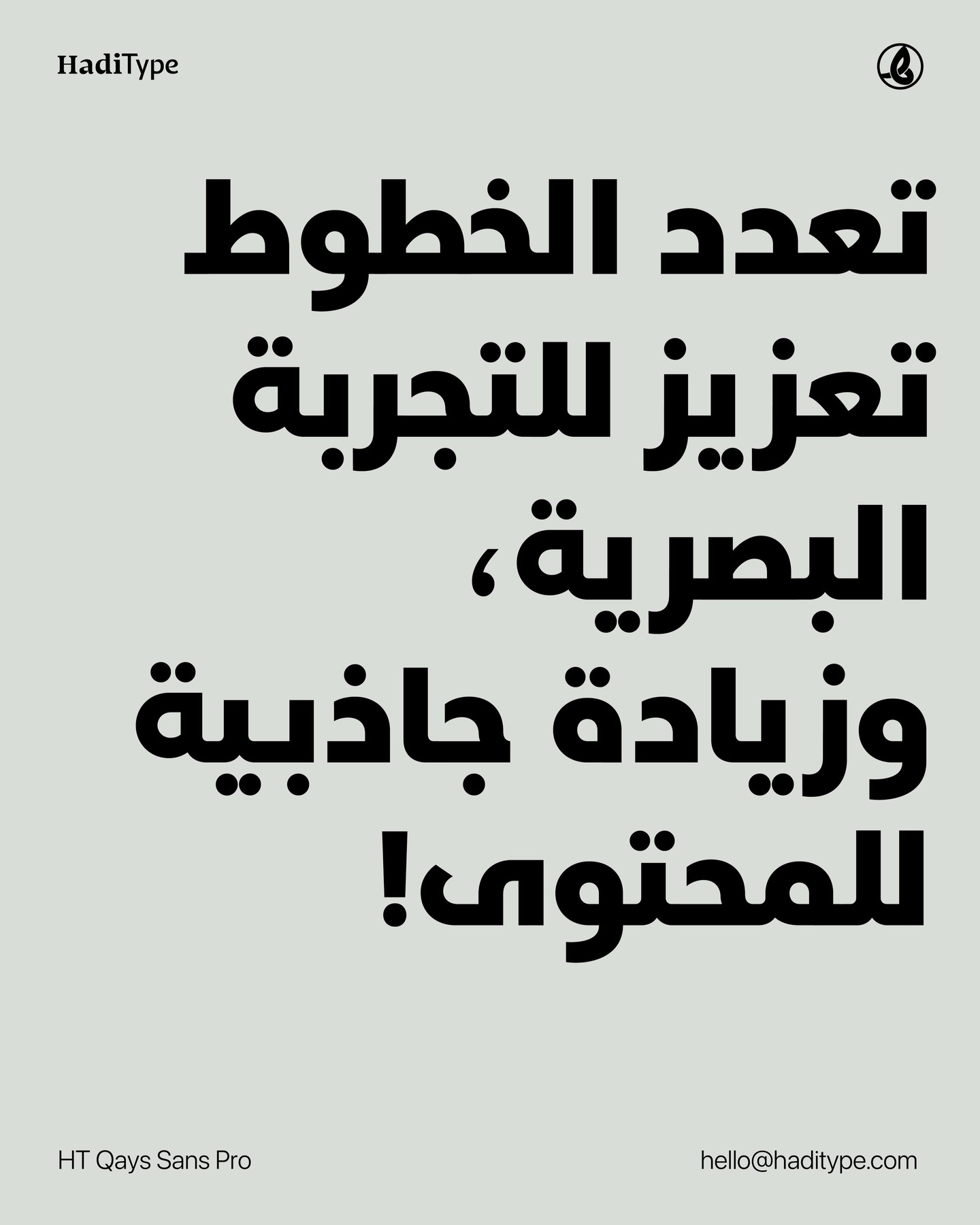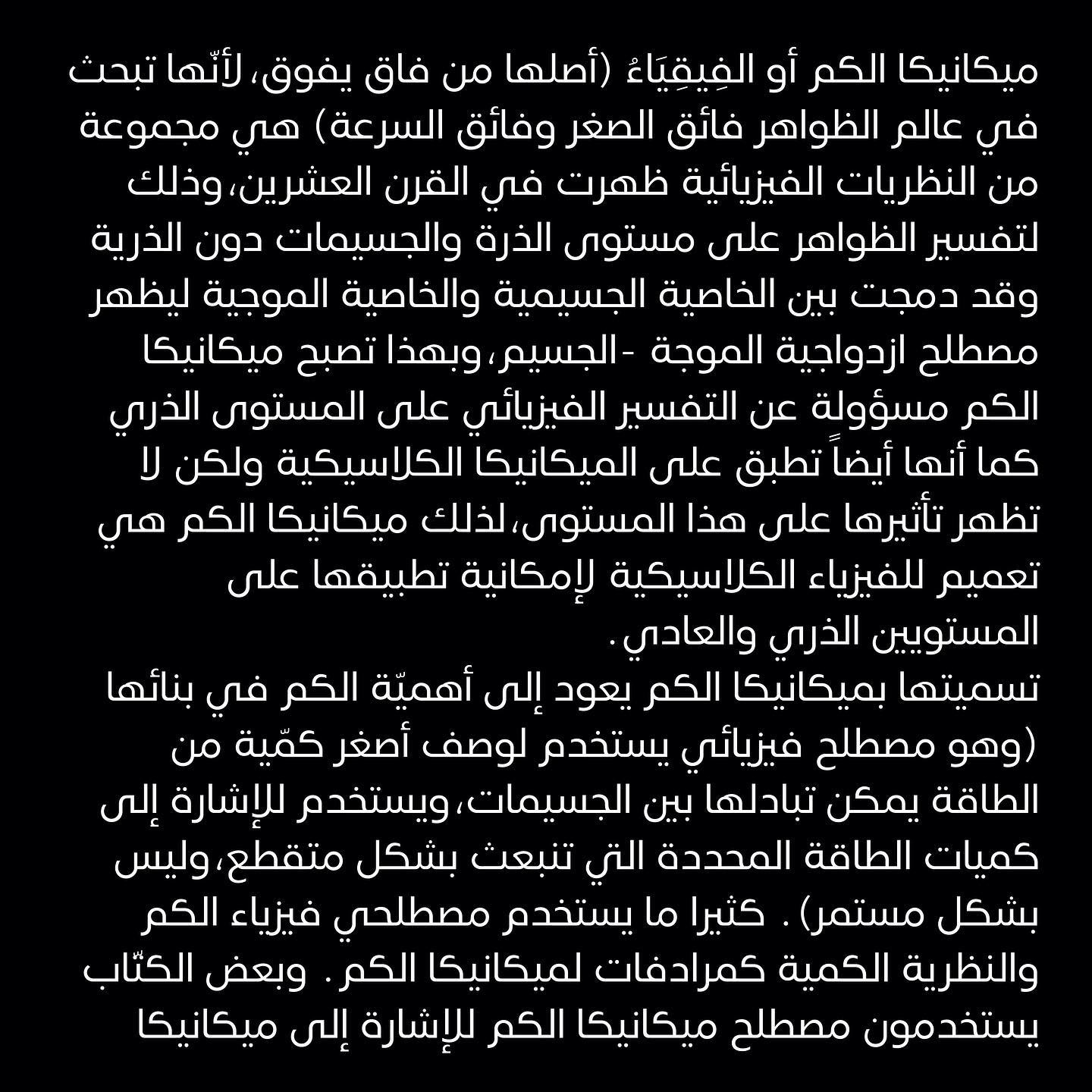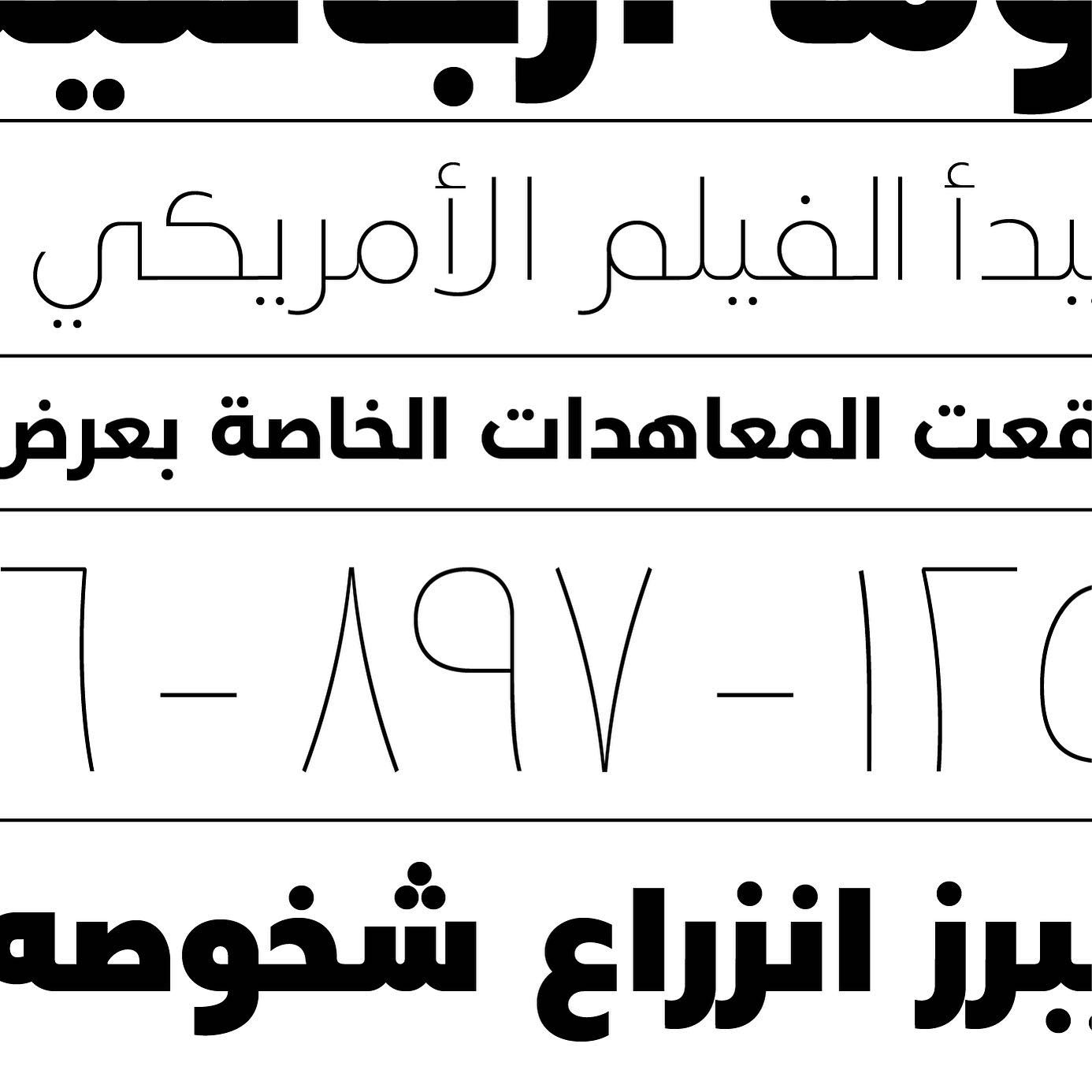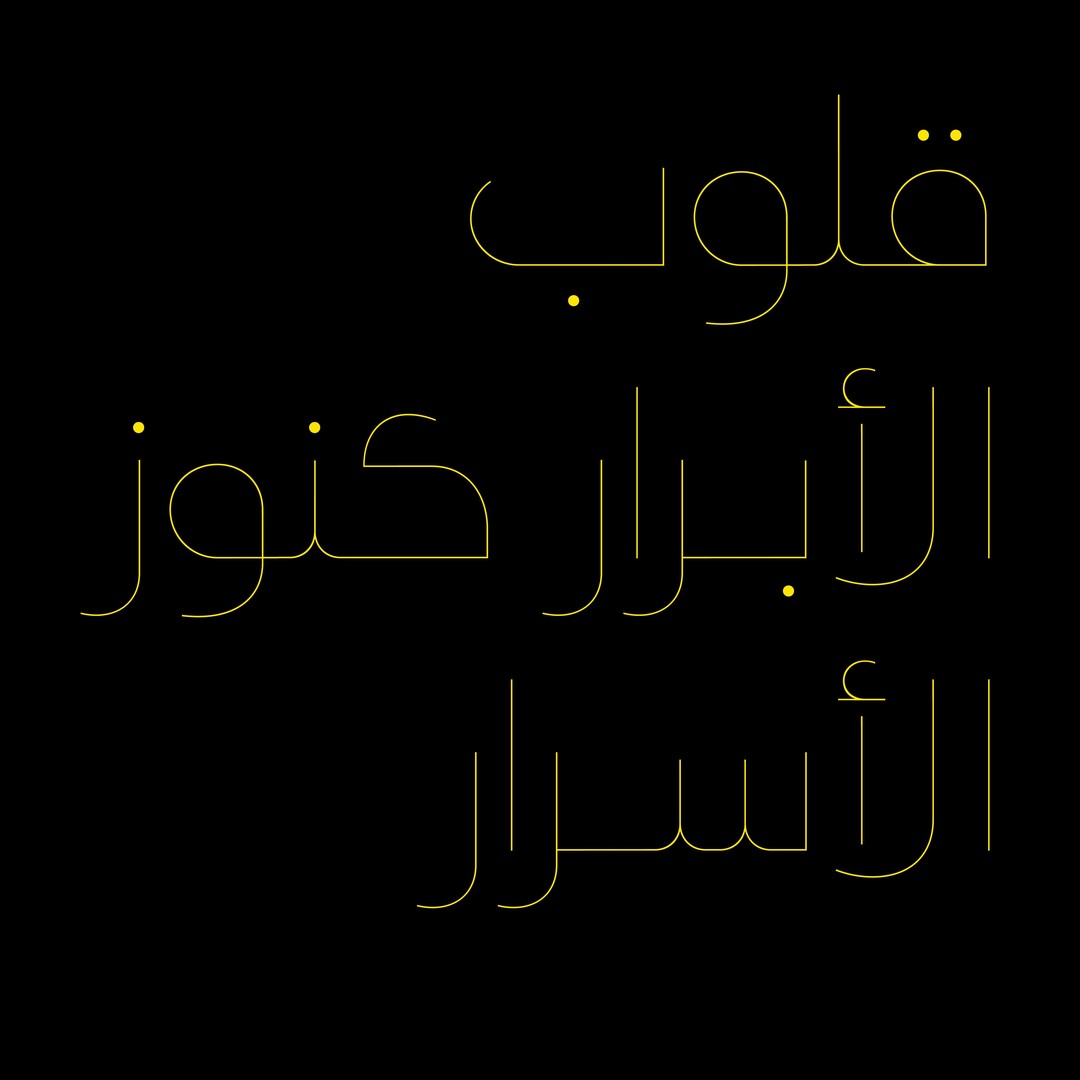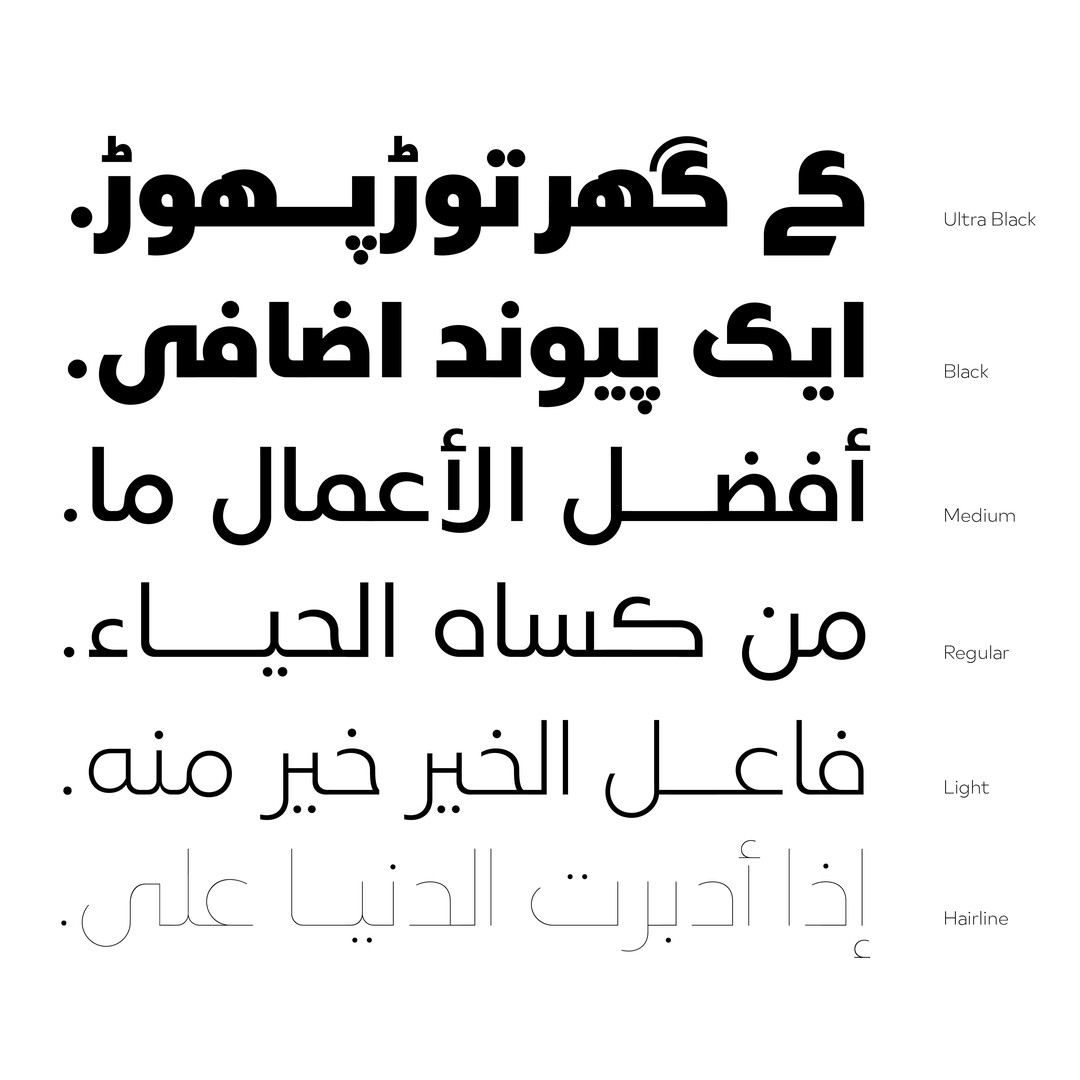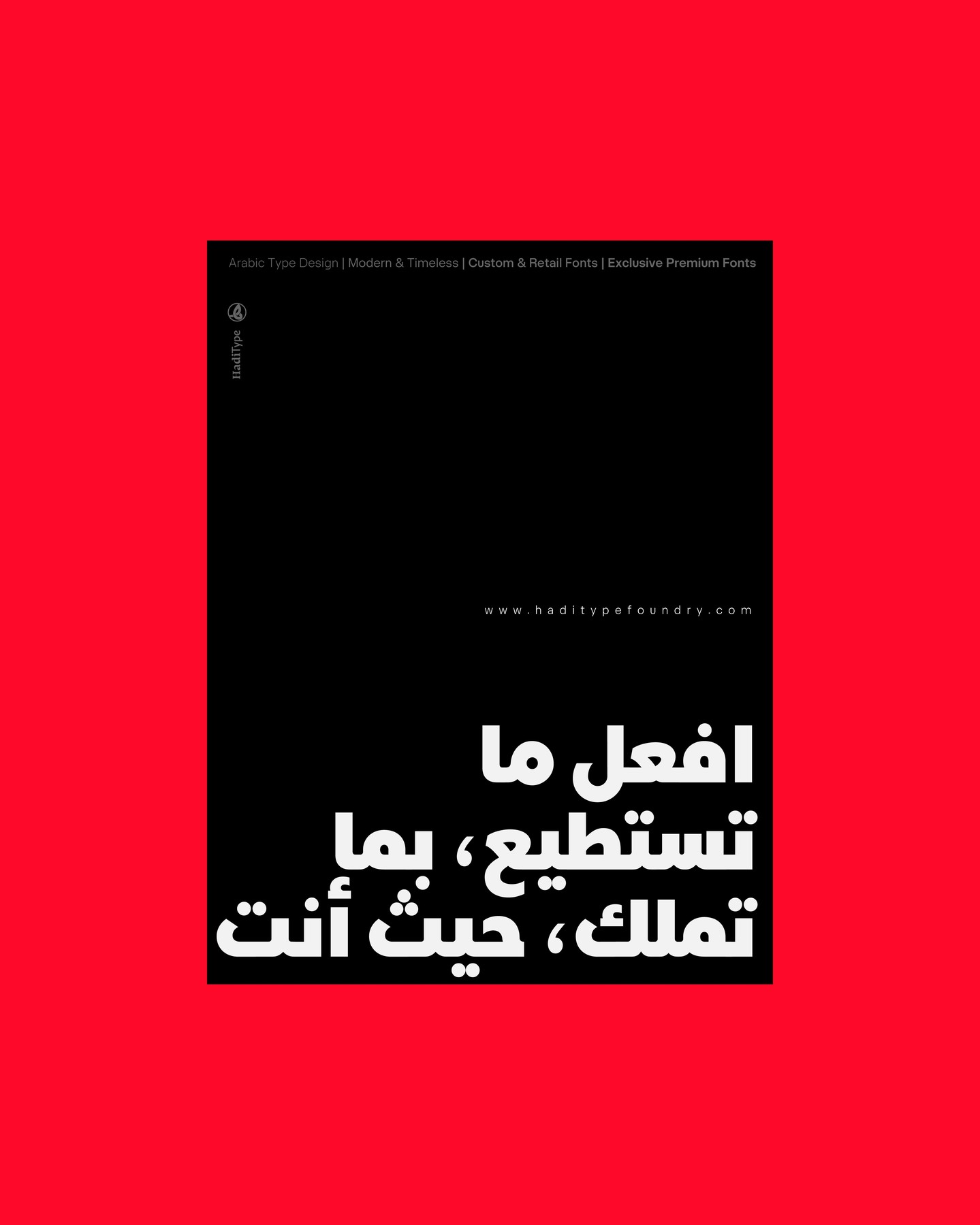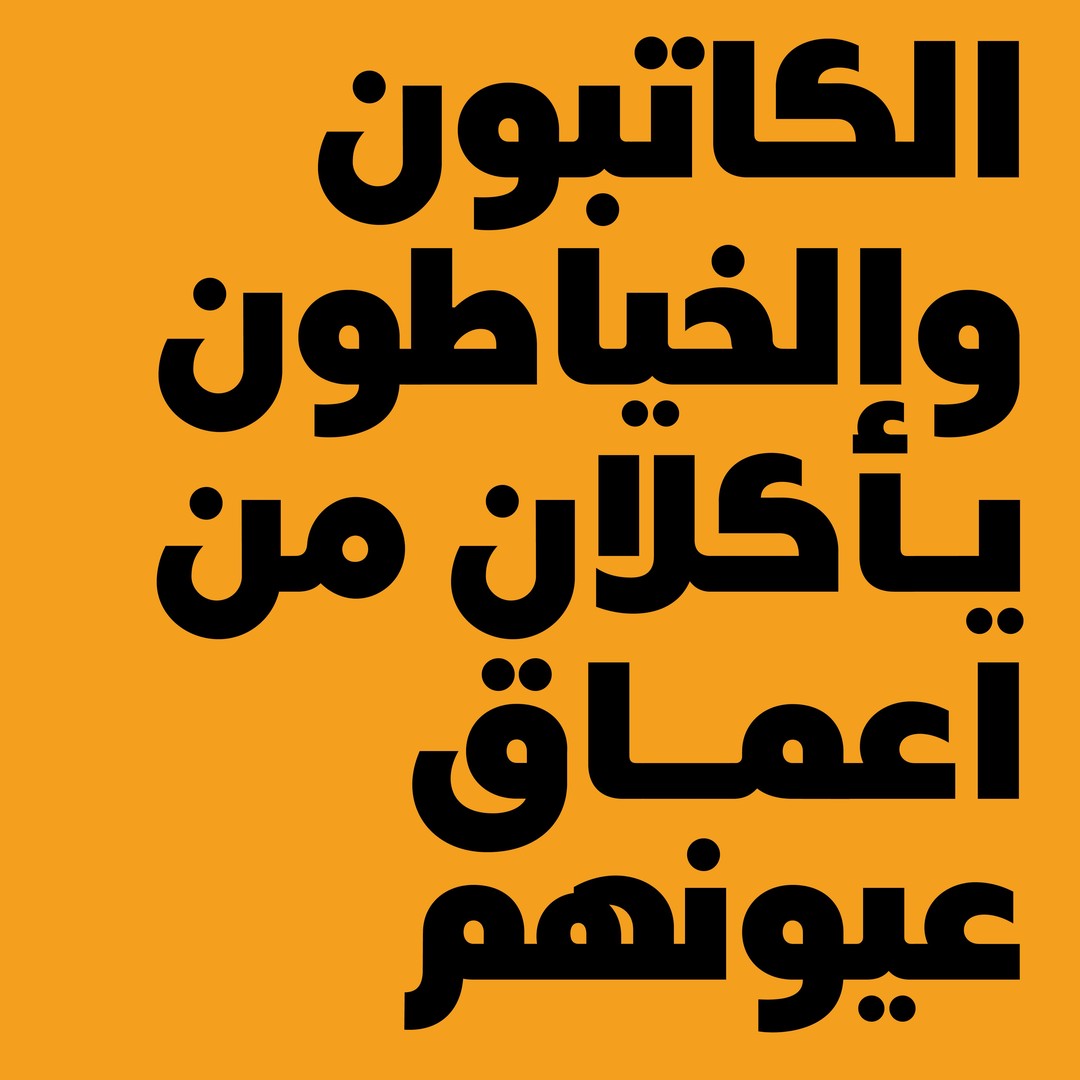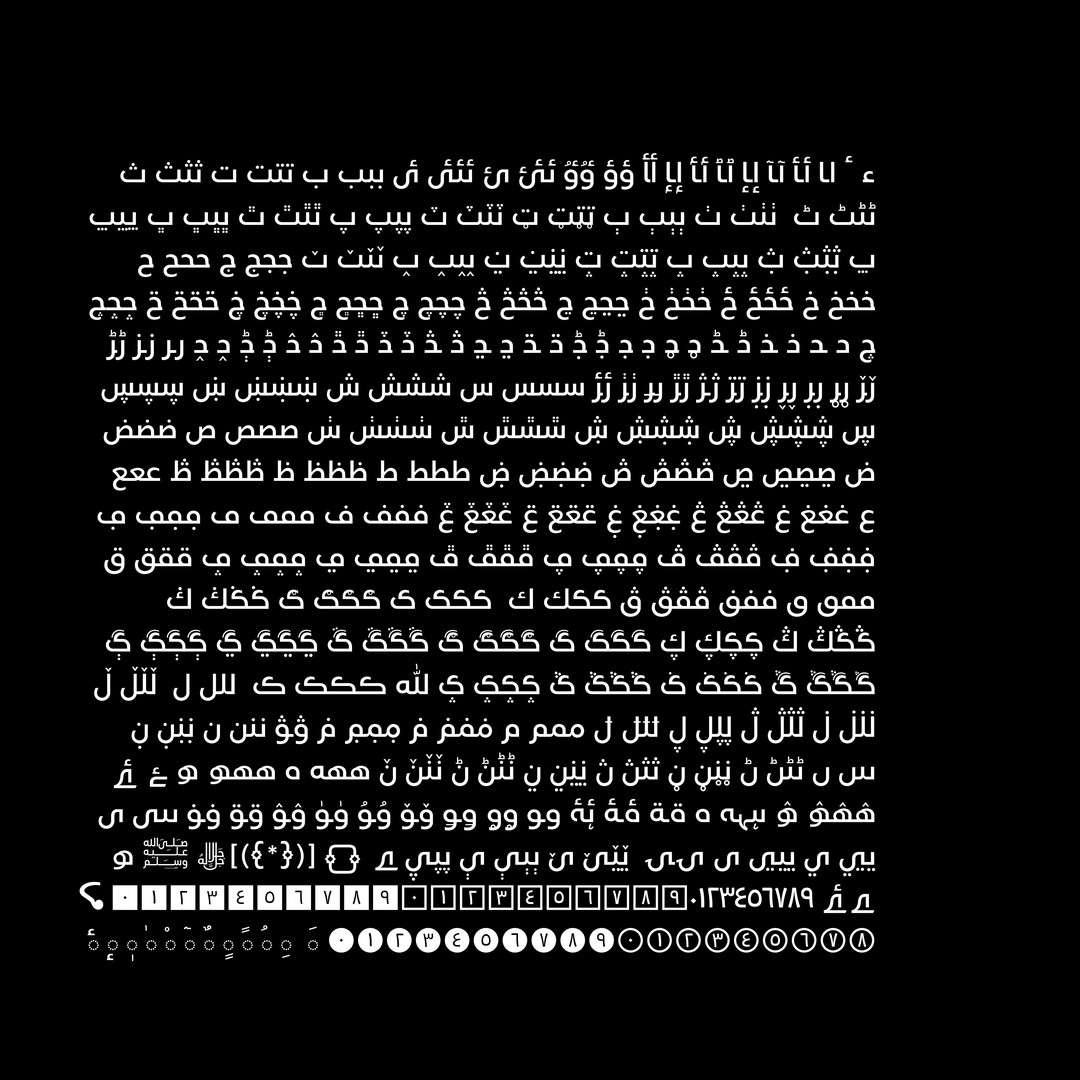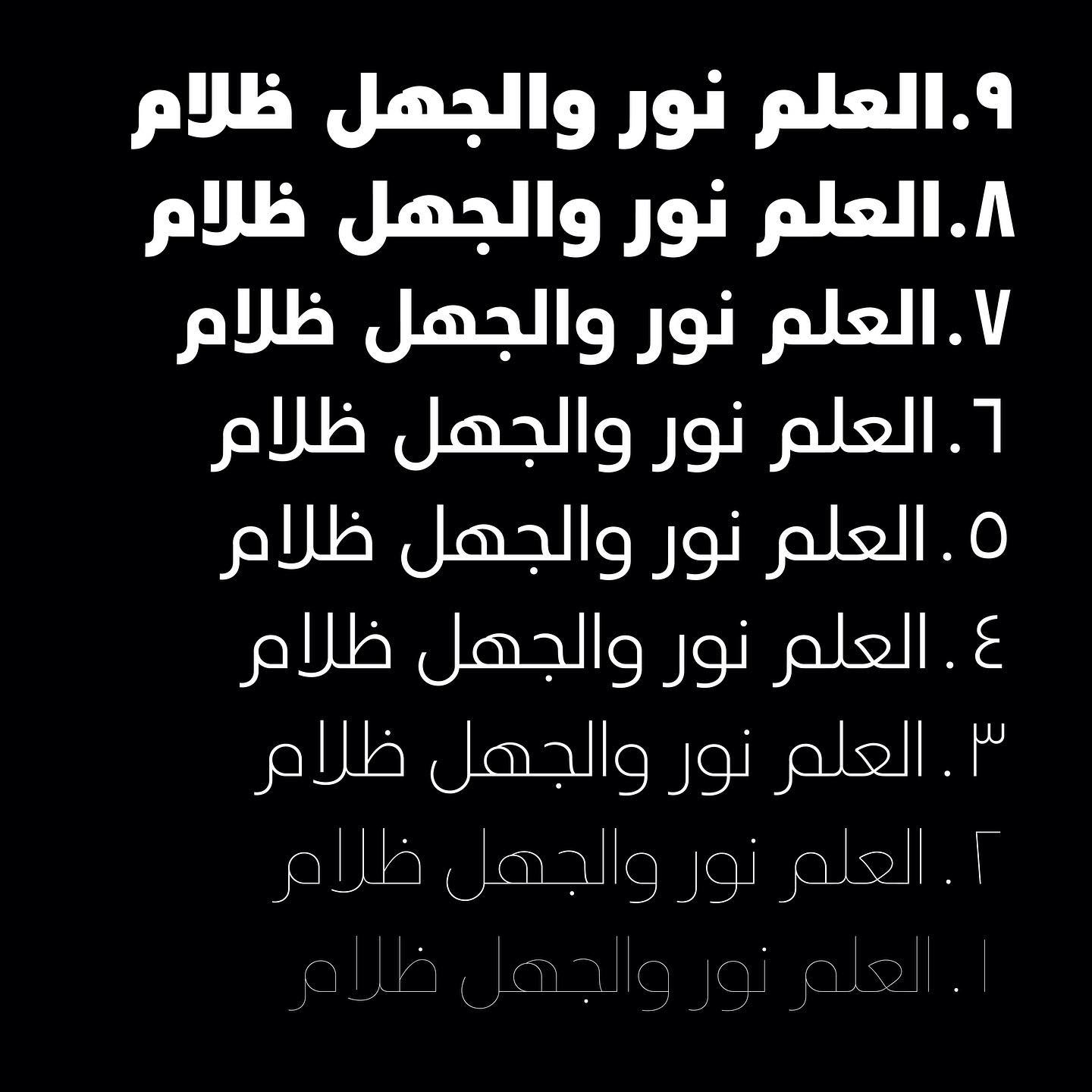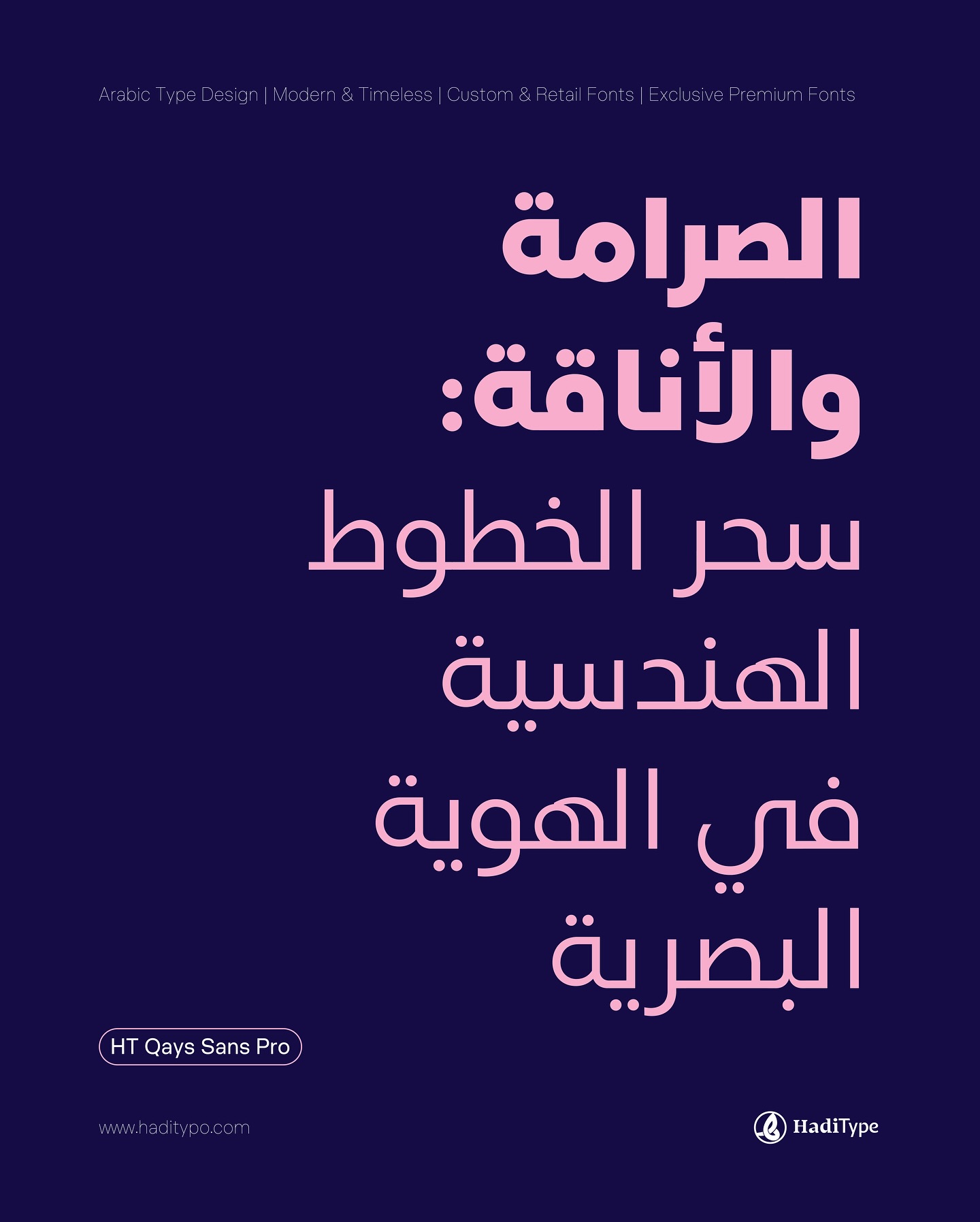
HT Qays Sans
قيس سانز برو™... انطلاقة جديدة لخط عربي هندسي بثلاثة محاور تصميم
Completely reimagined in 2020, with expanded Unicode support and 9 weights
منذ إصداره الأول عام ٨١٠٢، أصبح قيس سانز لغة تصميم للهوية
Built to give brands a consistent and confident voice in Arabic script
خط صُمم ليمنح العلامات التجارية نغمة صوت متّزنة وواضحة
Where modernity meets clarity — a typeface crafted for cross-language identity
من اللوحات الإعلانية إلى الواجهات الرقمية، قيس سانز حاضر بقوة
Supports Arabic, Persian, Urdu, and the full spectrum of Arabic script
هوية طباعية مرنة... لمستقبل العلامات الجريئة
Qays Sans Pro™ is a contemporary geometric Arabic font by Muhammed Hadi.
his first release was in 2018 and was support Arabic, Persian & Urdu only with 4 weights.
in 2020 Muhammed Hadi completely re-designed Qays from the ground up with 3 design axes & made a big expansion to support the full Unicode with extremely 9 different weights!
Qays Sans Pro™ Now provides full coverage of the Arab script, allows brands to maintain their visual identity, and communicates with a consistent voice tone with many famous Latin typefaces, offering linguistic versatility across environments – suited to branding and corporate identity, advertising, signage, wayfinding, print, and digital environments.